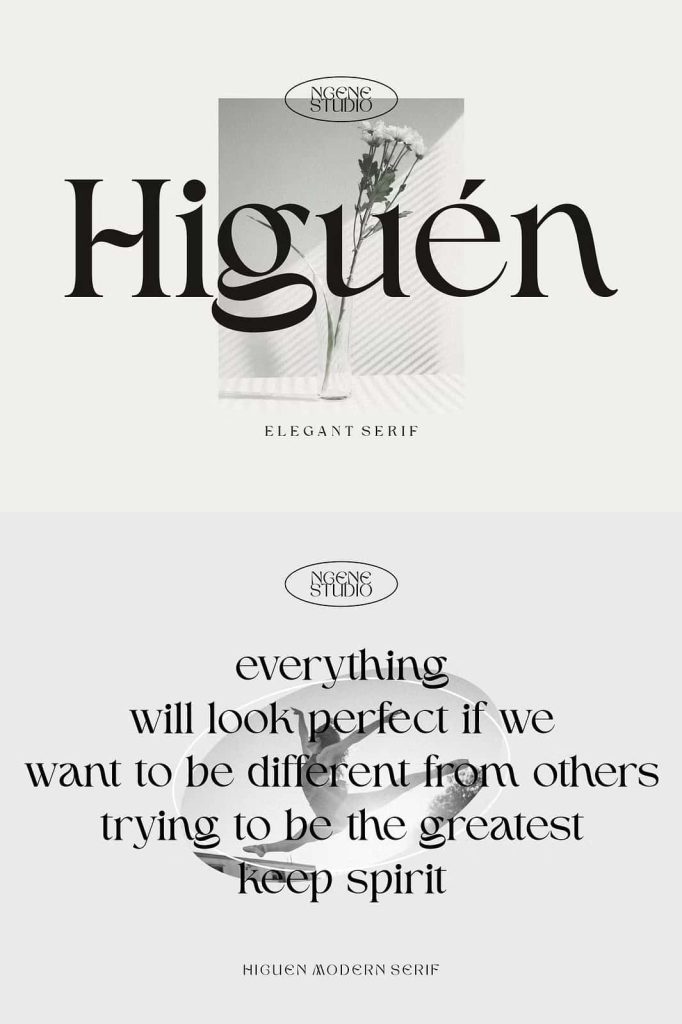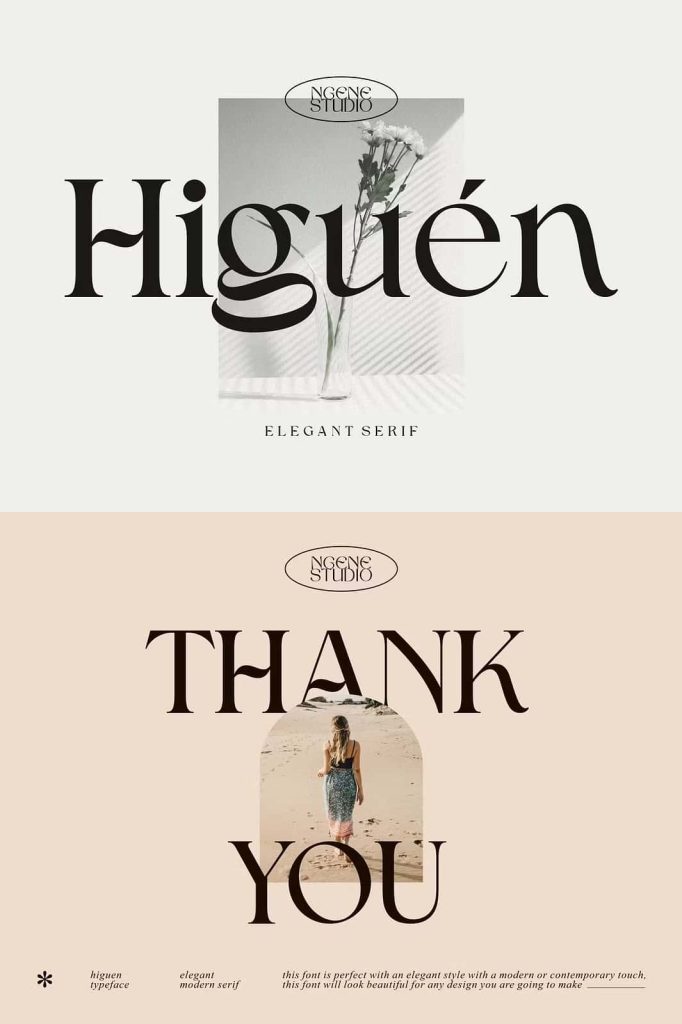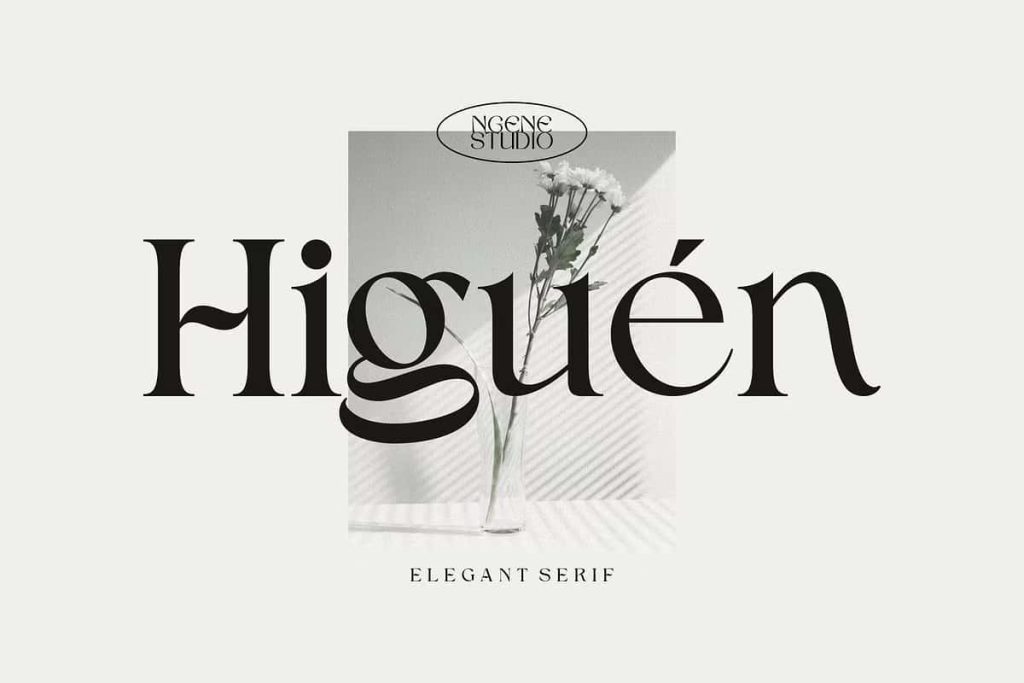
Higuen Elegant SerifleastedJuly 5, 2025Fonts Higuen vintage style serif font with an elegant and modern touch, this font draws from a wide variety of characters. Download